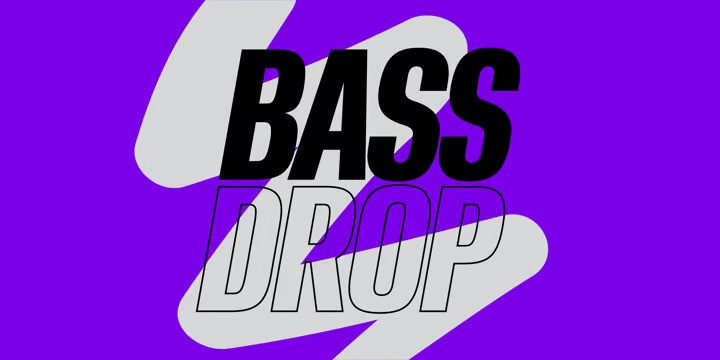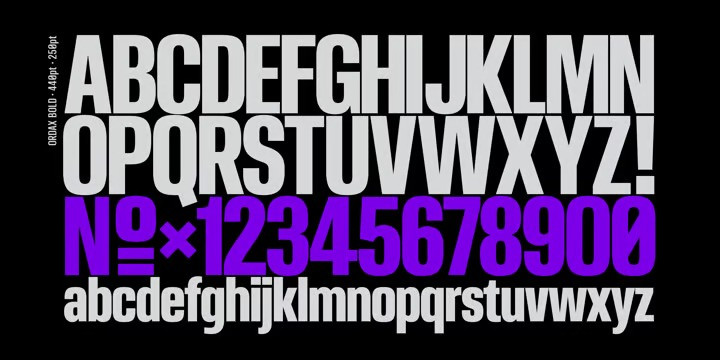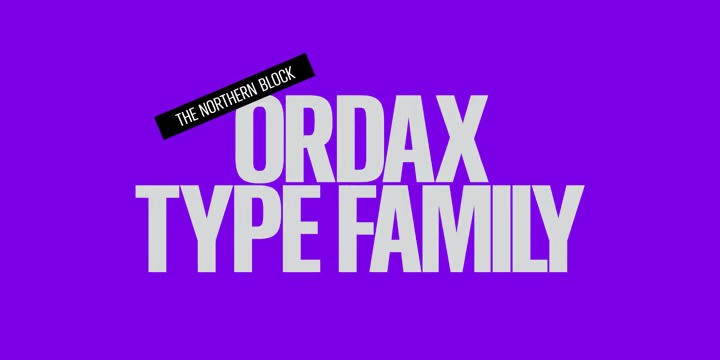
Ordax Sans Serif Font is a condensed sans-serif font inspired by modernist signage of various examples found in the Eixample neighbourhood in Barcelona. Simple, clean and modern, it was designed to assert reliability and gravitas to the content. It is particularly suitable for projects that demand simplicity and space economy. Details include four weights with matching italics, 447 characters and the Opentype features.